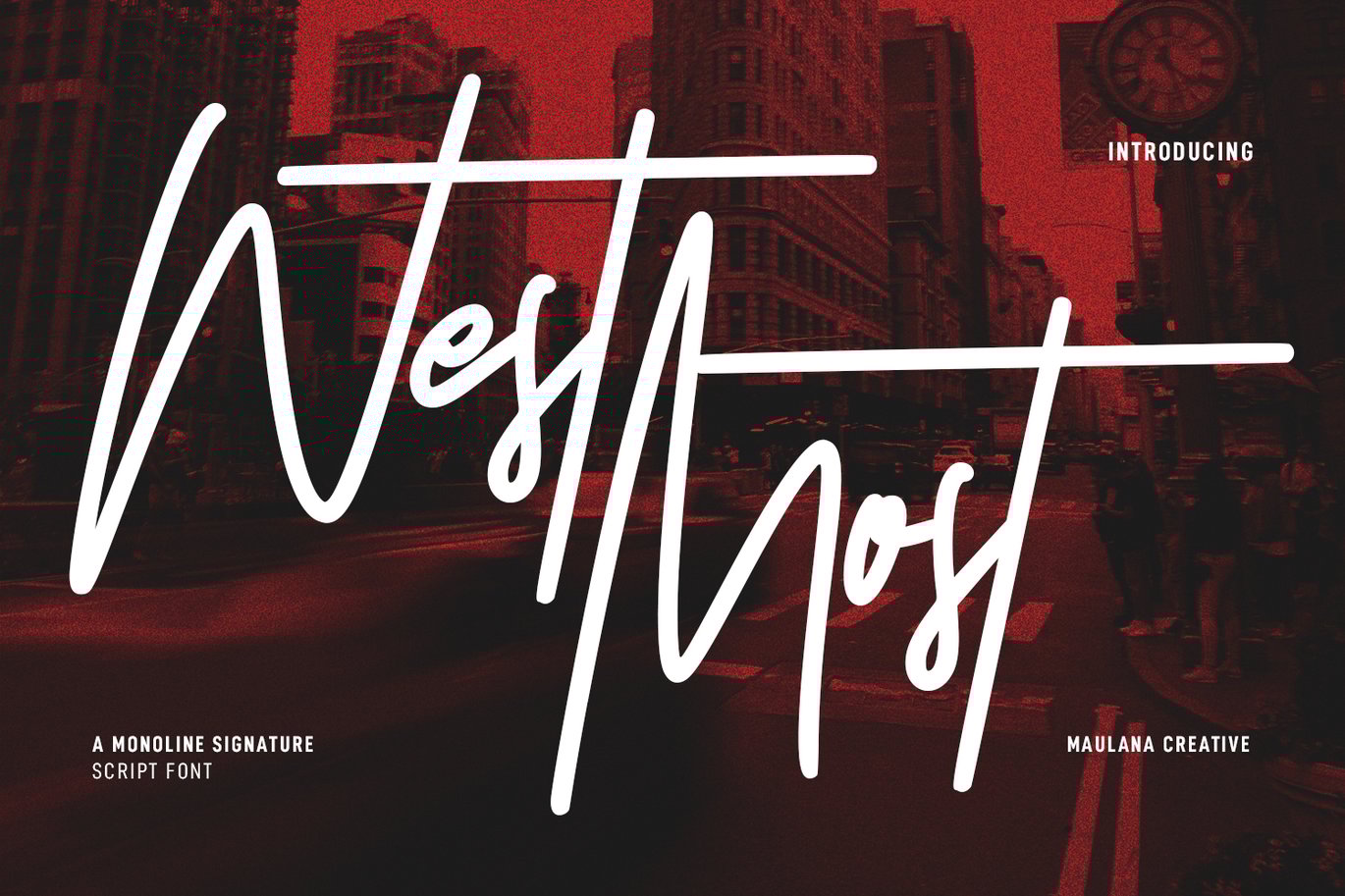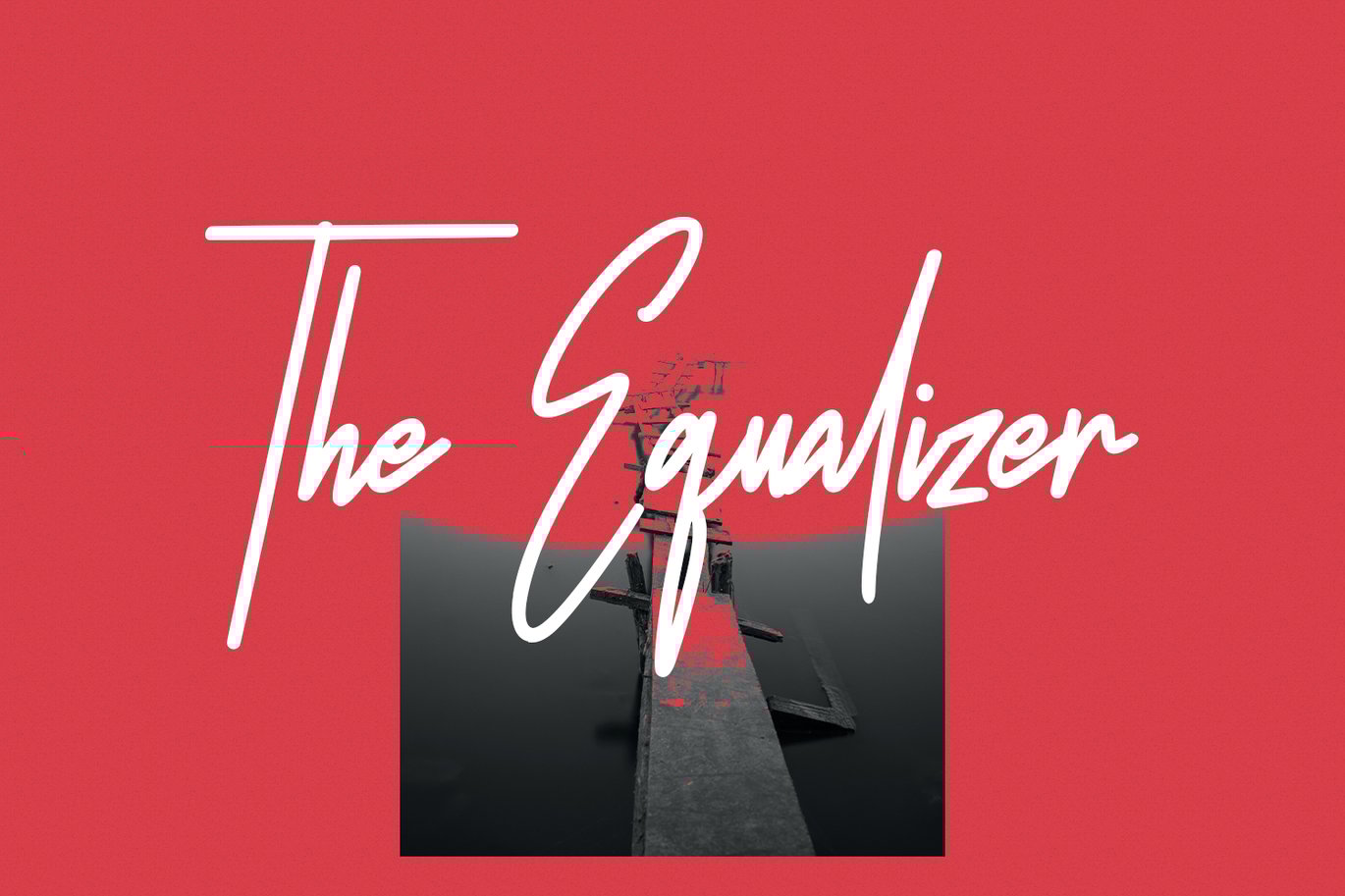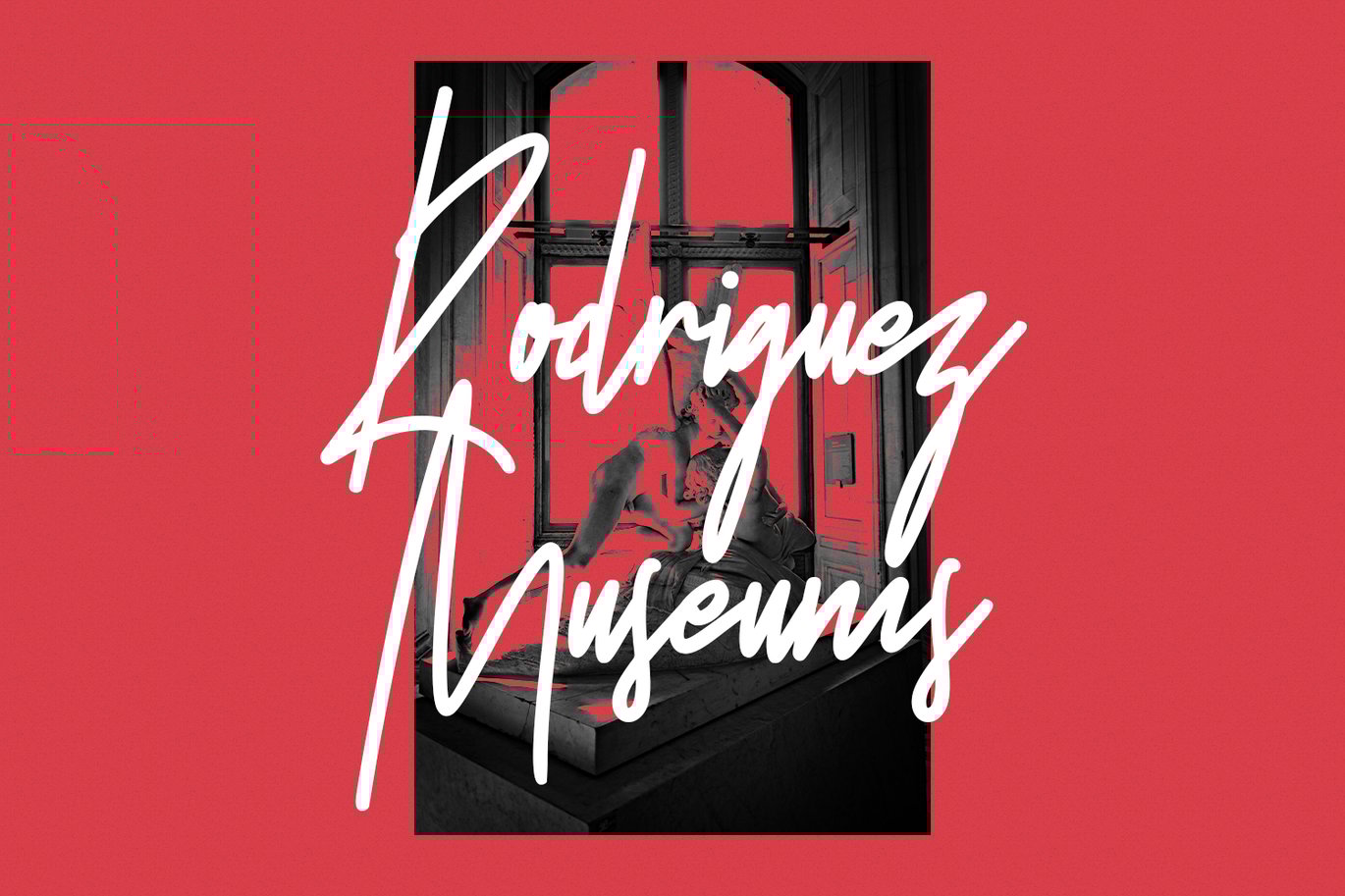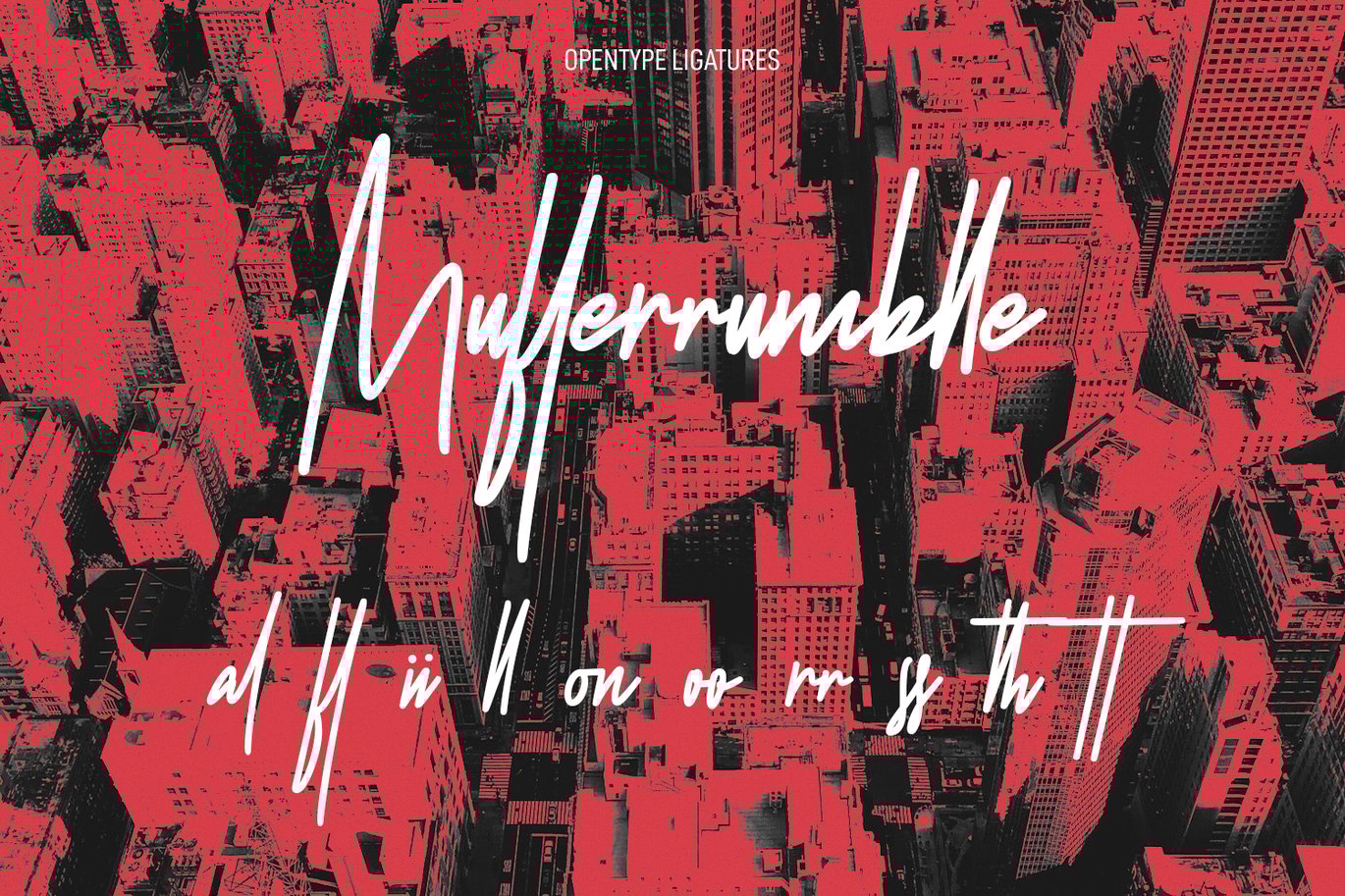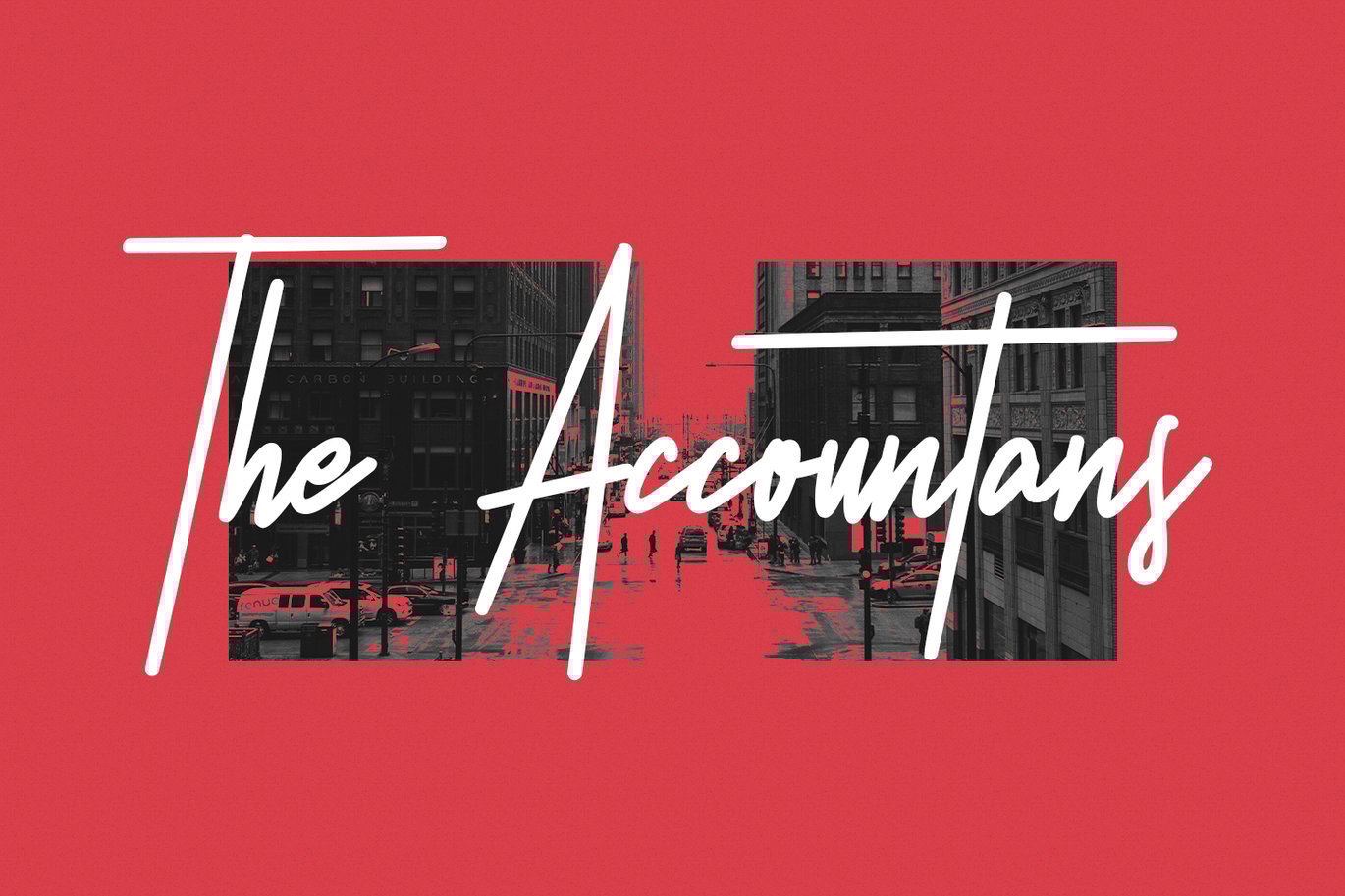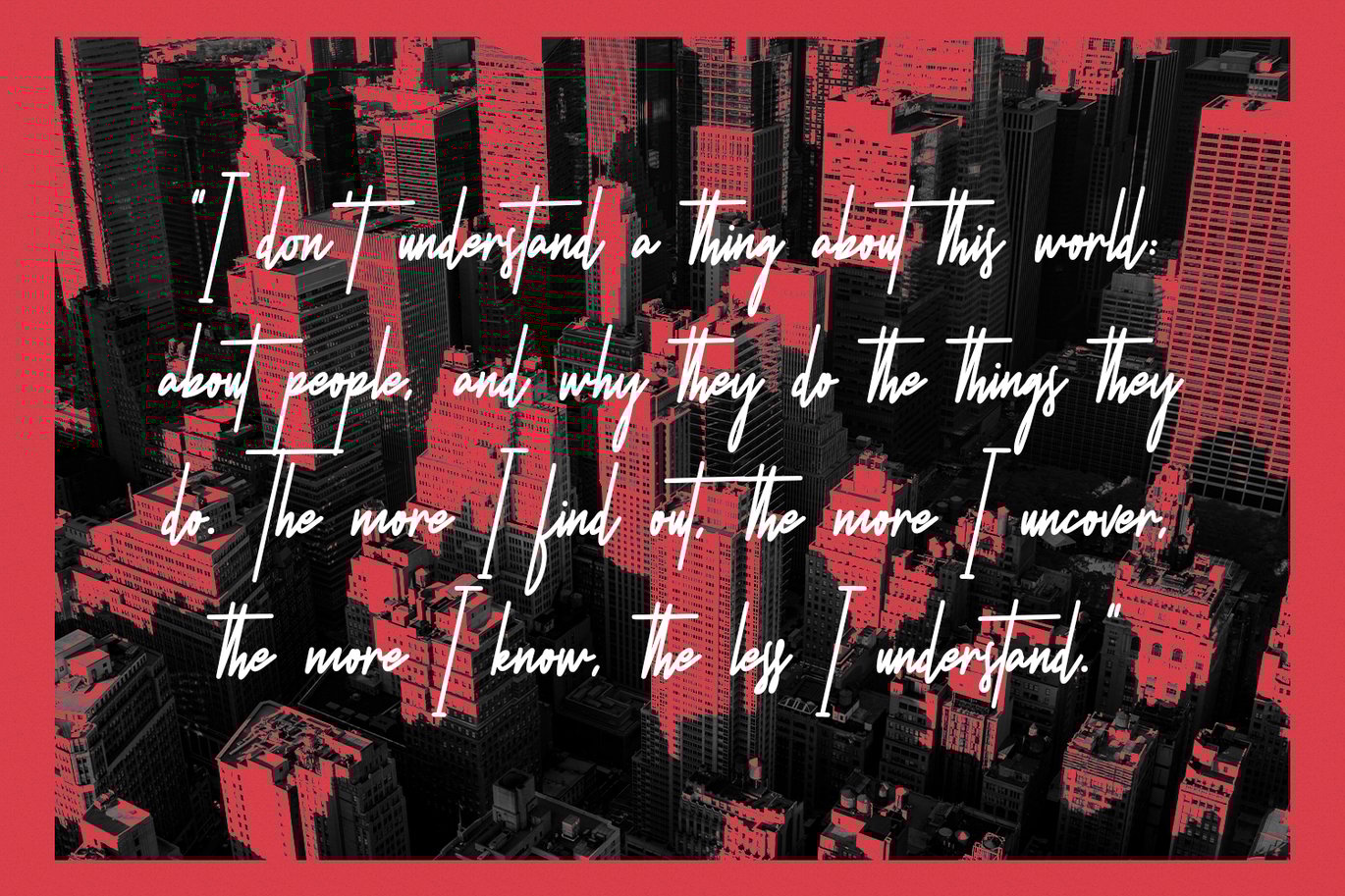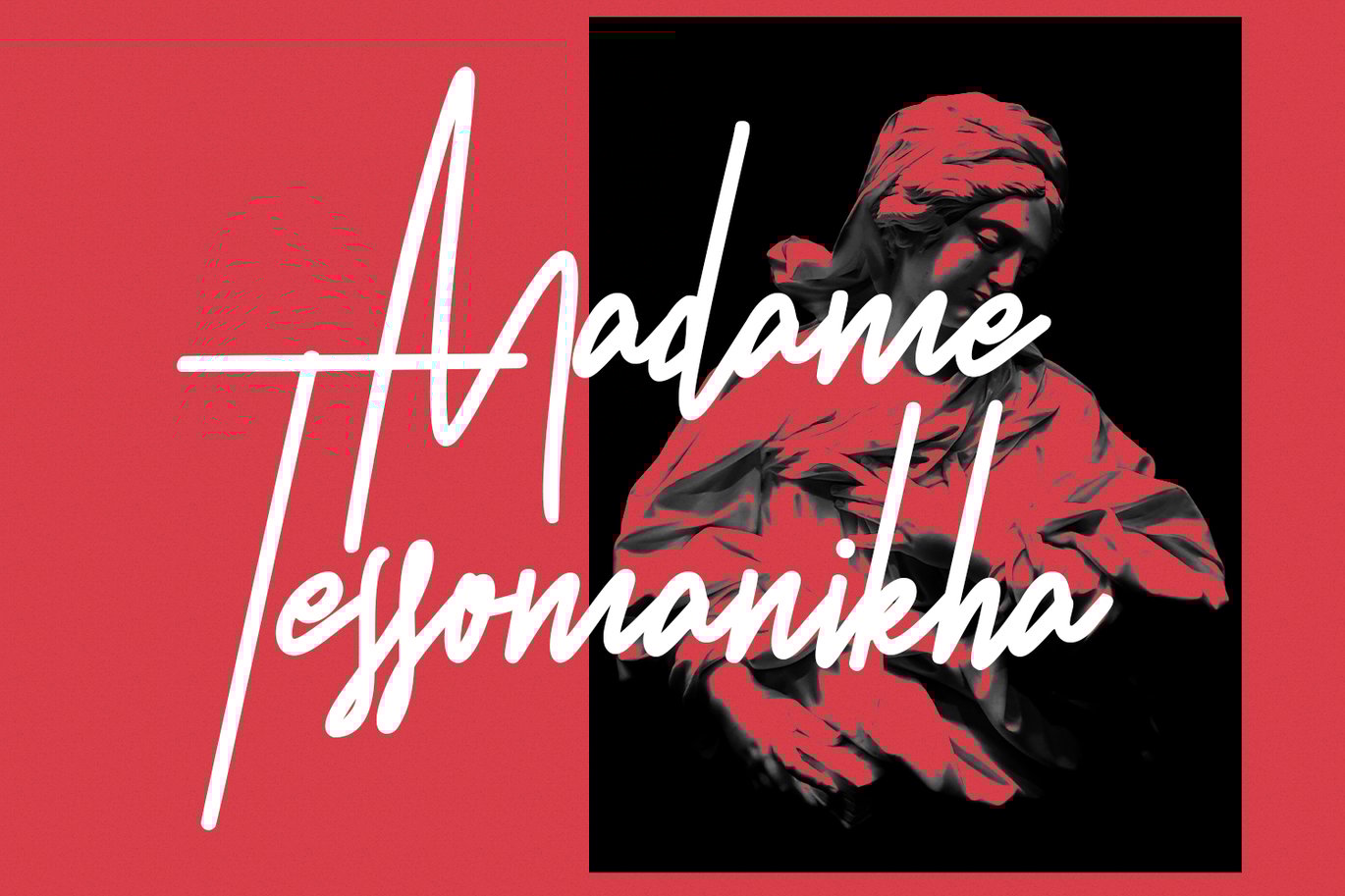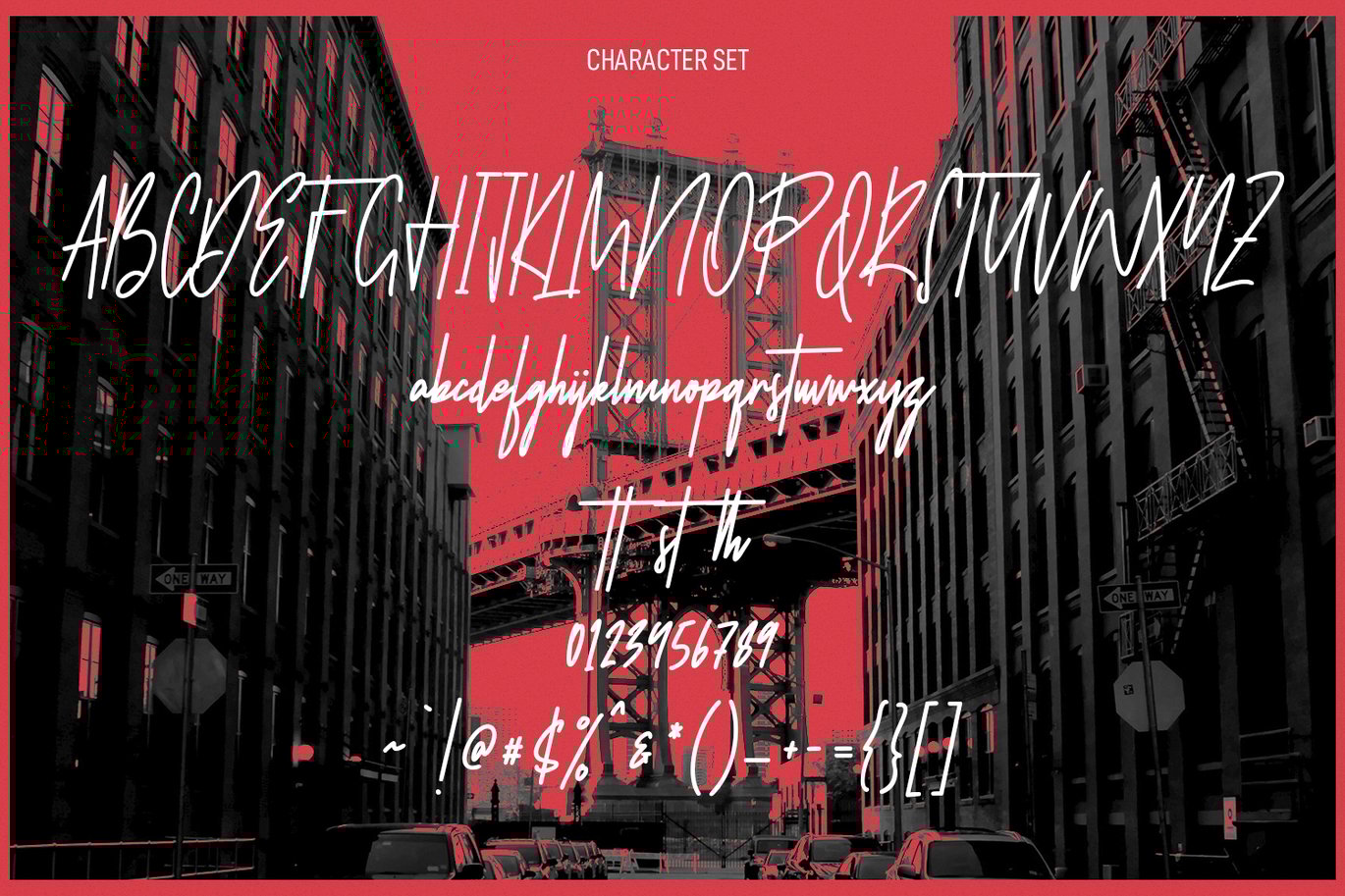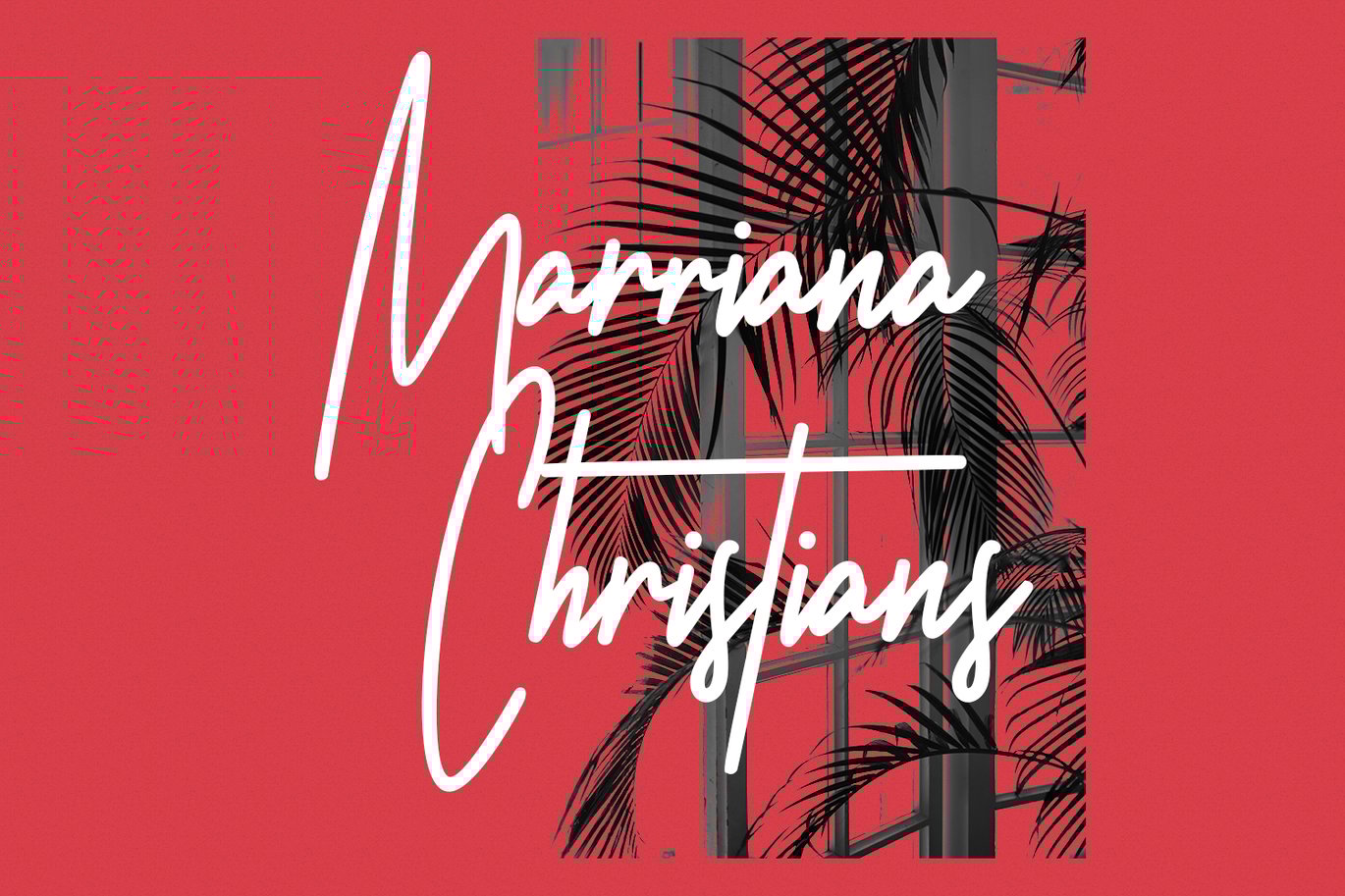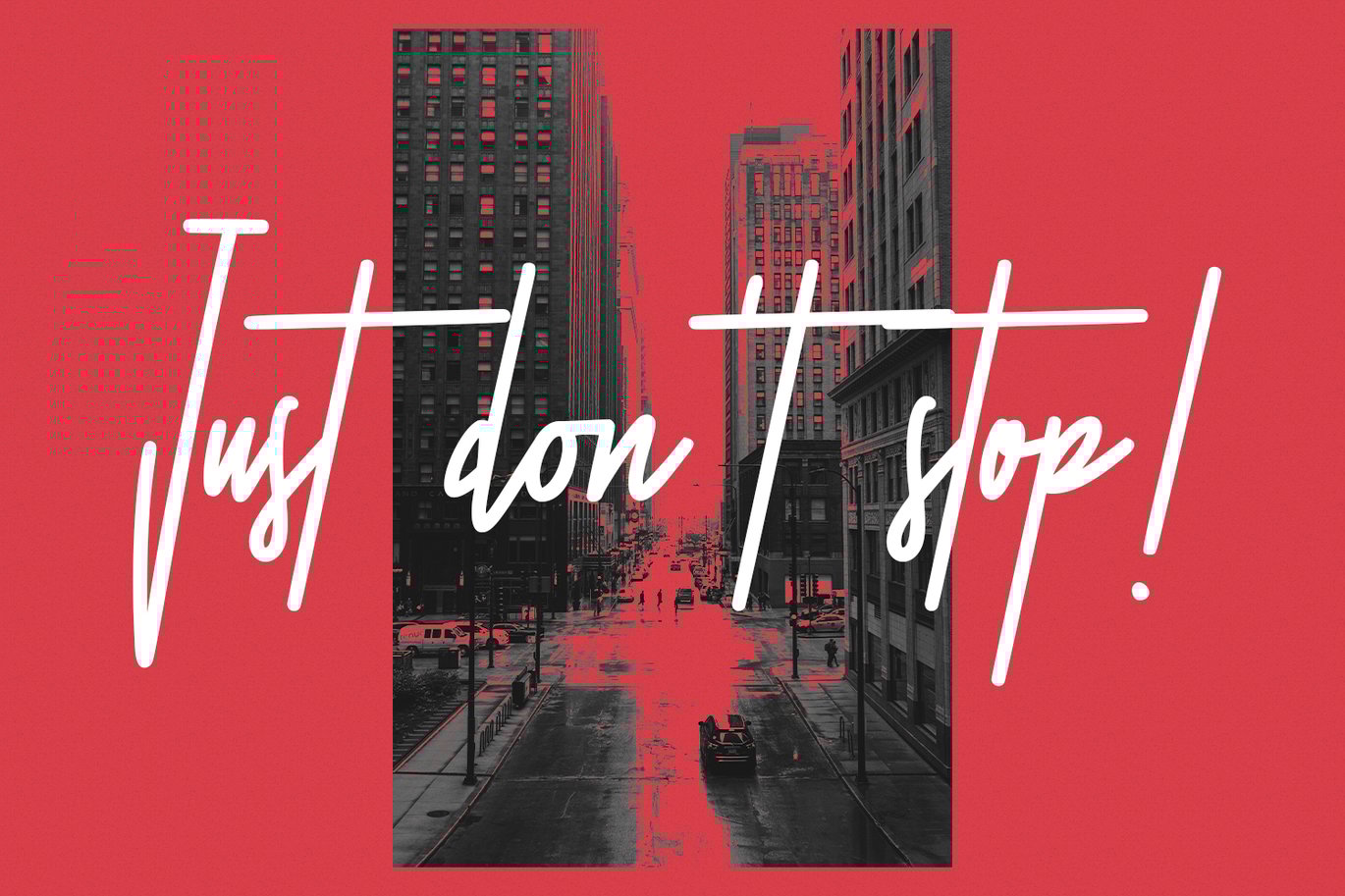
West Most Monoline Signature Script Font
West Most is an expressive casual script font. With clean mono-line stroke, tall and fun character with a bit of ligatures and alternates. To give you an extra creative work. West Most font support multilingual more than 100+ language. This font is good for logo design, Social media, Movie Titles, Books Titles, a short text even a long text letter and good for your secondary text font with sans or serif. Make a stunning work with West Most font.